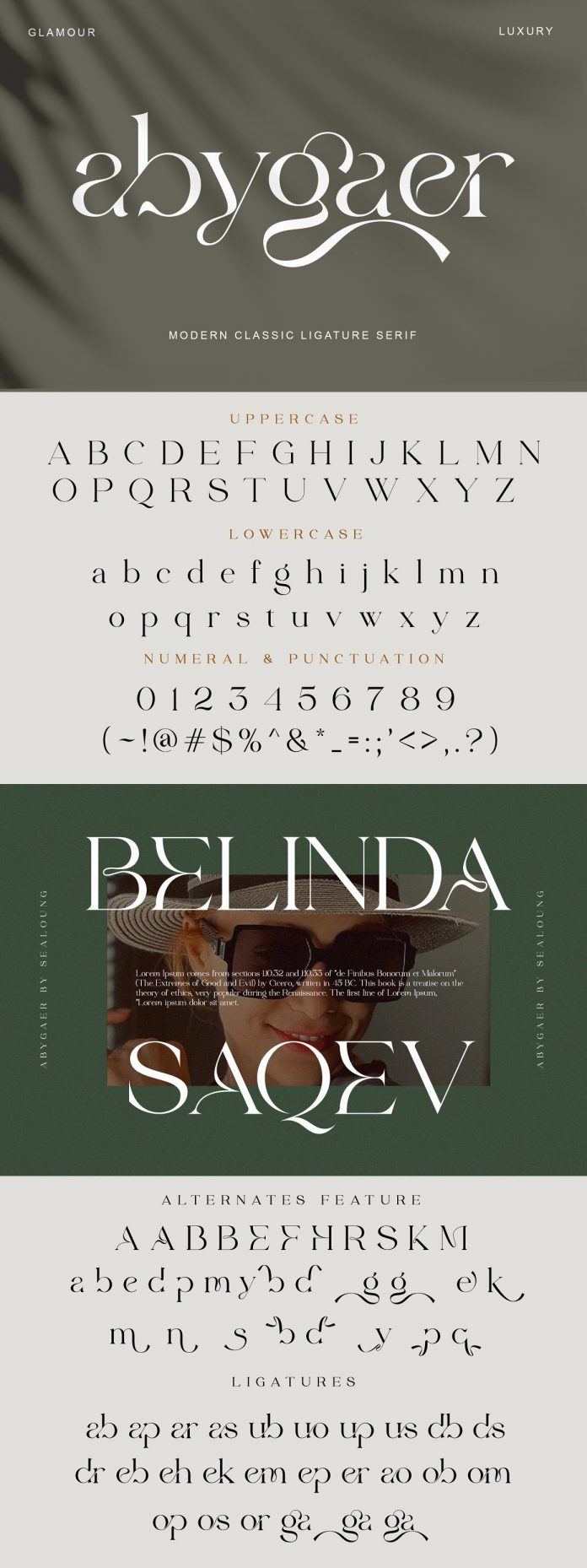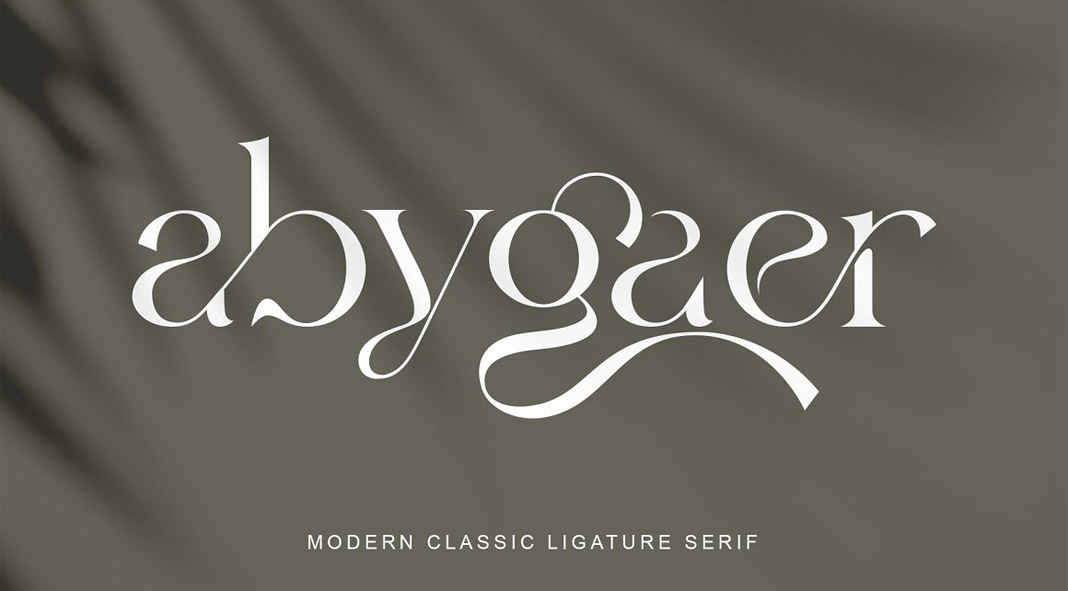
Discover Abygaer, a stylish vintage-inspired typeface with elegant letter shapes.
Designed and published by type studio Sealoung, Abygaer is a new display font that comes with numerous OpenType features including alternate letters and ligatures. This elegant vintage-inspired font also supports multiple languages. You can use it for a wide range of work including magazine headlines, posters, social media, packaging, just to name a few. Just click on one of the following links to learn more about this stylish typeface.